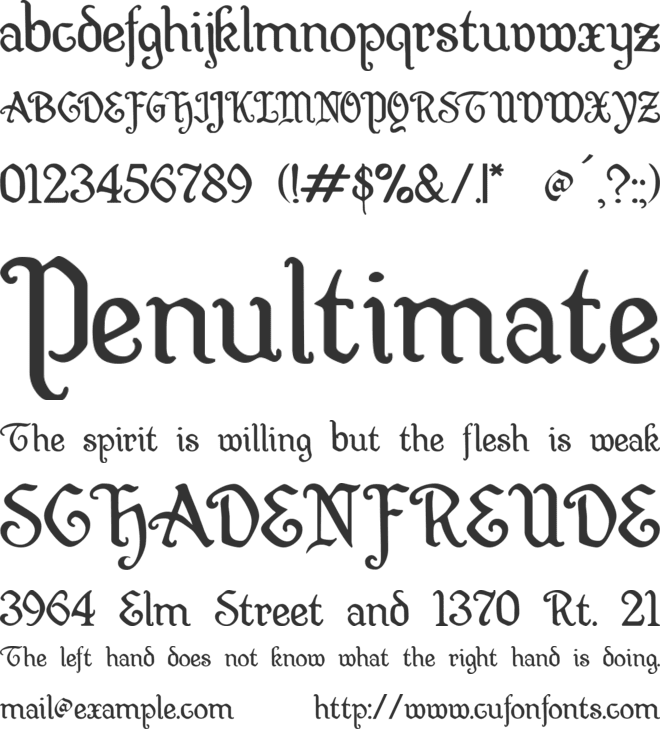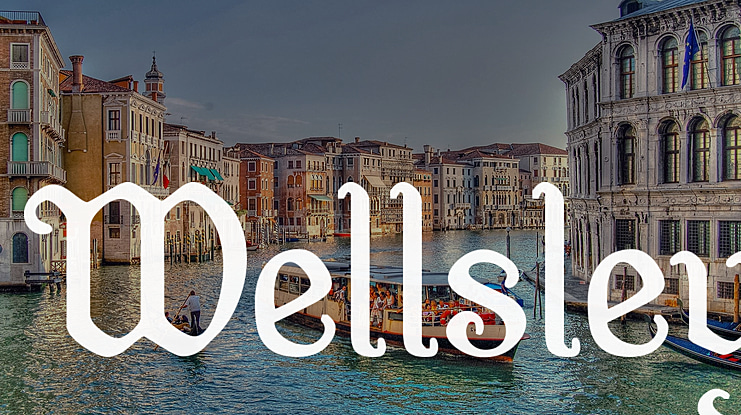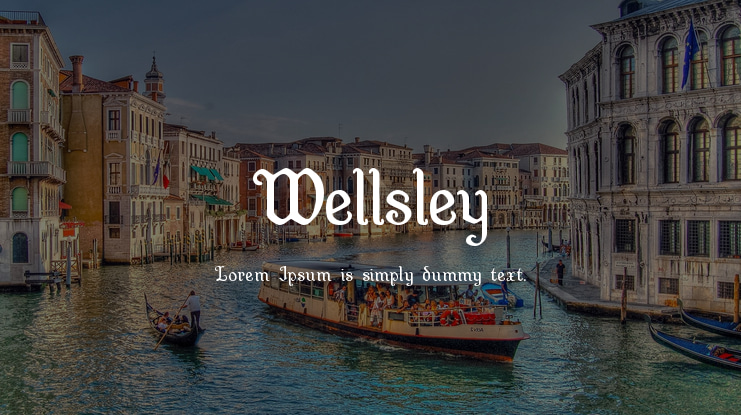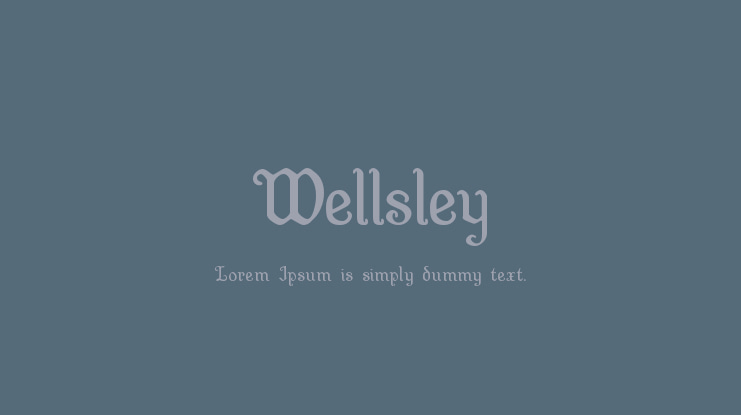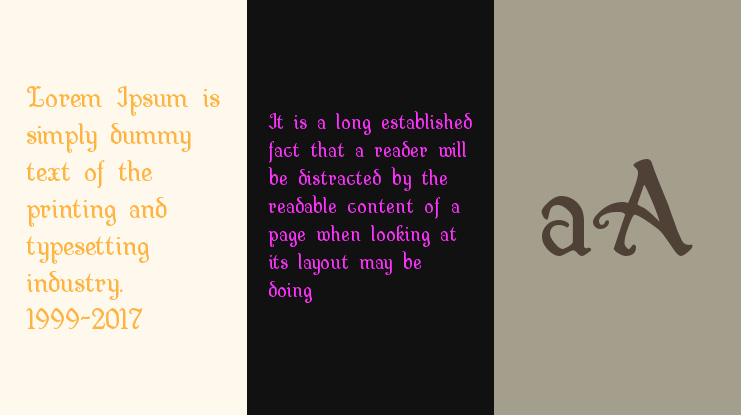
Wellsley Font
The Wellsley font is a calligraphic font with curled serifs somewhat angular curves and a Gothic look to it. This is a complete true type font for Windows containing the entire upper and lower case alphabet, numbers, punctuation, and most of the extended characters.